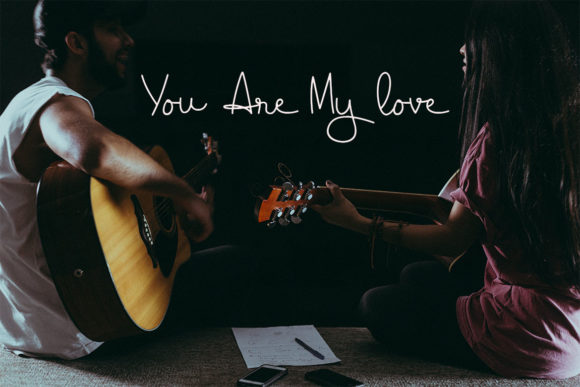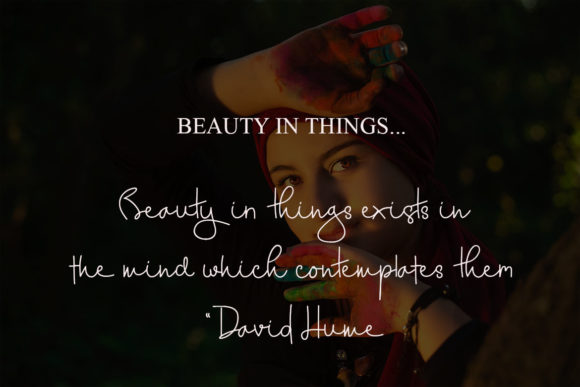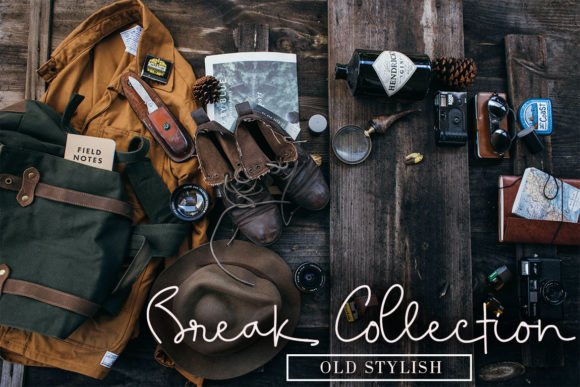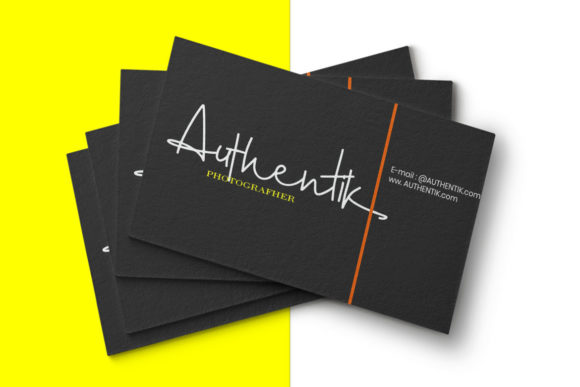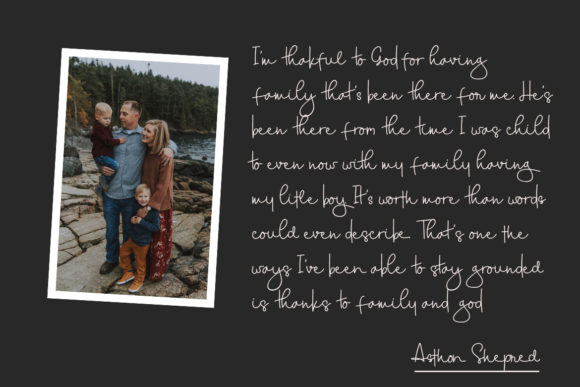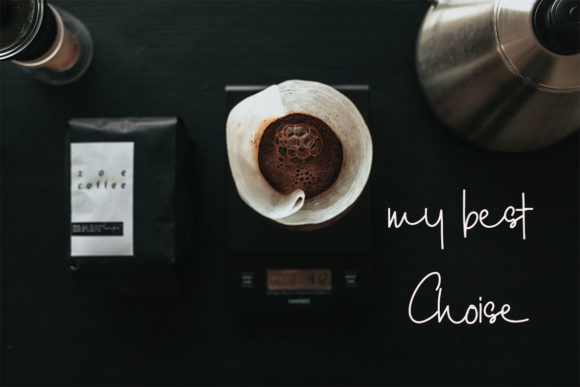
Introducing Breathing Font: Elevate Your Designs with Elegance
In the world of typography, a font can make or break a design. For designers and crafters seeking a touch of sophistication and whimsy, the Breathing Font is a game-changer. This stylish and delicate script font is poised to become a favorite in your collection, offering a clean, thin, and smooth vibe that complements any design.
The Beauty of Breathing Font
Breathing Font boasts a unique charm that sets it apart from other script fonts. Its elegant, cursive letters seem to dance across the page, adding a touch of refinement to any project. The font’s clean lines and delicate features make it perfect for a wide range of applications, from wedding invitations and branding materials to digital graphics and craft projects.
Endless Possibilities
One of the most exciting aspects of Breathing Font is its versatility. With its PUA (Private Use Area) encoding, you can access a vast array of glyphs and swashes with ease. This means you can experiment with different combinations to create truly unique and eye-catching designs. Whether you’re a seasoned designer or a crafty DIY enthusiast, Breathing Font offers endless possibilities for creative expression.
Key Features of Breathing Font
- PUA Encoded: Easy access to glyphs and swashes for effortless customization
- Clean and Thin: A smooth, refined appearance perfect for a range of designs
- Delicate Script: Elegant, cursive letters that add a touch of sophistication
- Versatile: Suitable for various applications, from digital graphics to print materials
Why Choose Breathing Font?
With so many fonts available, why choose Breathing Font? The answer lies in its unique blend of style, elegance, and versatility. This font is designed to elevate your designs, setting them apart from the ordinary. Whether you’re working on a branding project, creating digital art, or crafting handmade cards, Breathing Font is the perfect choice.
Tips for Using Breathing Font
To get the most out of Breathing Font, here are a few tips:
- Experiment with Swashes: Use the PUA-encoded glyphs and swashes to add unique flourishes to your designs
- Mix and Match: Combine Breathing Font with other fonts for a distinctive look
- Play with Colors: Breathing Font looks stunning in a range of colors, from soft pastels to bold brights
Breathing Font is a stylish and delicate script font that is sure to become a staple in your design collection. With its clean, thin, and smooth vibe, PUA encoding, and endless possibilities for customization, this font is perfect for designers and crafters alike. So why wait? Download Breathing Font today and discover a world of creative possibilities!
Get Ready to Breathe Life into Your Designs